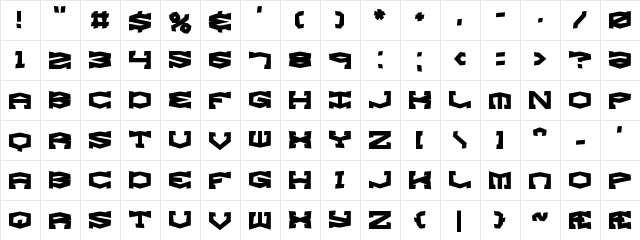
Complete Gyrose Shift BRK Normal glyph index. Displaying only characters natively supported by Gyrose Shift BRK Normal font.
Gyrose Shift BRK is a composed and adaptable typeface that performs quietly and consistently across a wide range of design contexts.